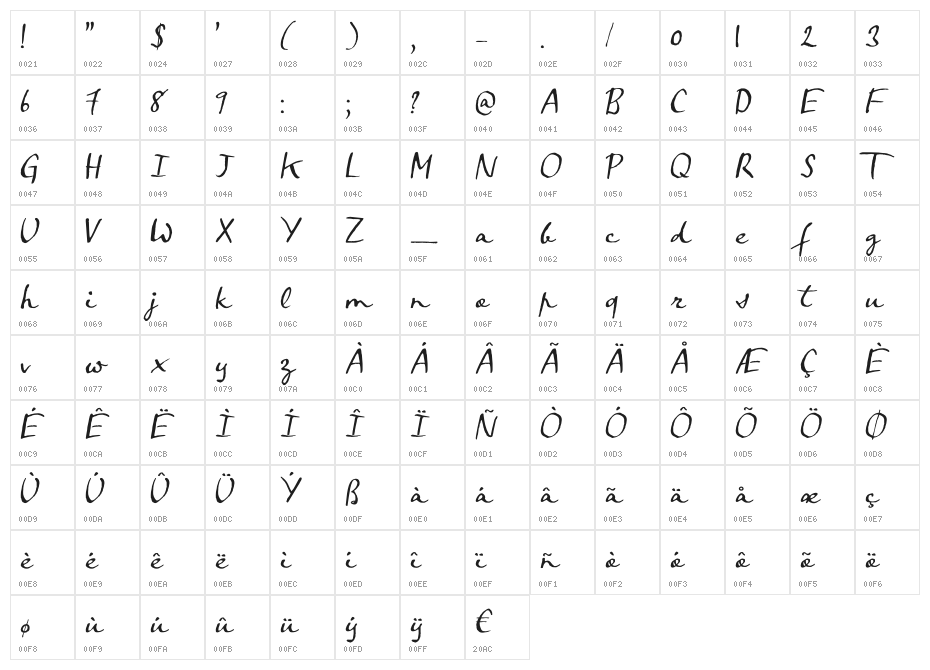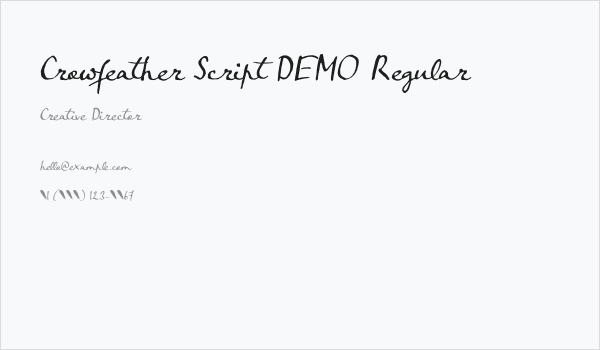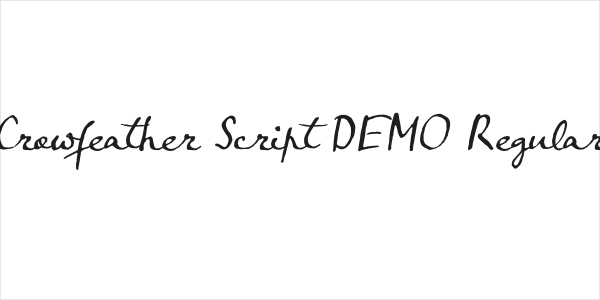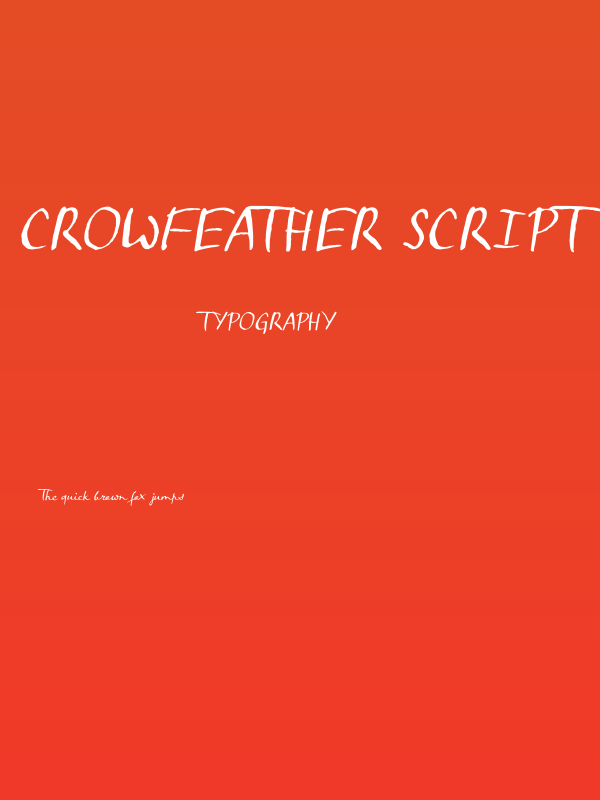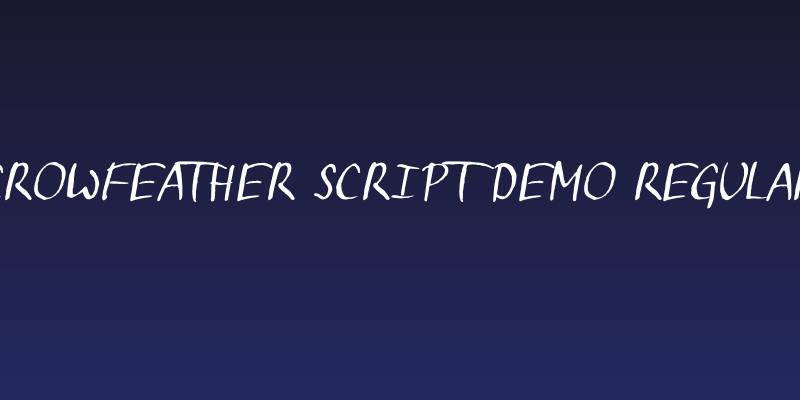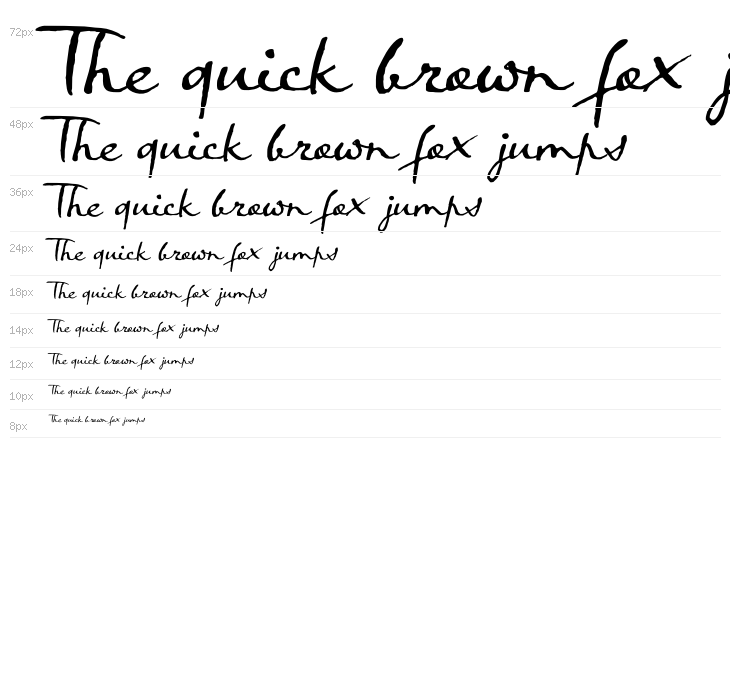
Crowfeather Script DEMO Regular Font
Crowfeather Script DEMO Regular Description
This font features a dynamic and expressive script style, characterized by its fluid, hand-drawn appearance. The uppercase letters are bold and slightly irregular, giving a sense of movement and energy. The lowercase letters maintain a consistent flow, with some letters extending below the baseline, adding to the handwritten feel. Numbers are crafted with the same lively style, ensuring cohesion across all characters. Special characters, including punctuation marks, are designed to match the overall aesthetic, with some featuring unique feather-like embellishments. This font exudes a sense of creativity and spontaneity, making it ideal for projects that require a personal touch.
| Use Case | Logos, Headlines, Artistic projects |
| Proposed Projects | Ideal for invitations, greeting cards, branding, and artistic projects that require a personal and creative touch. |